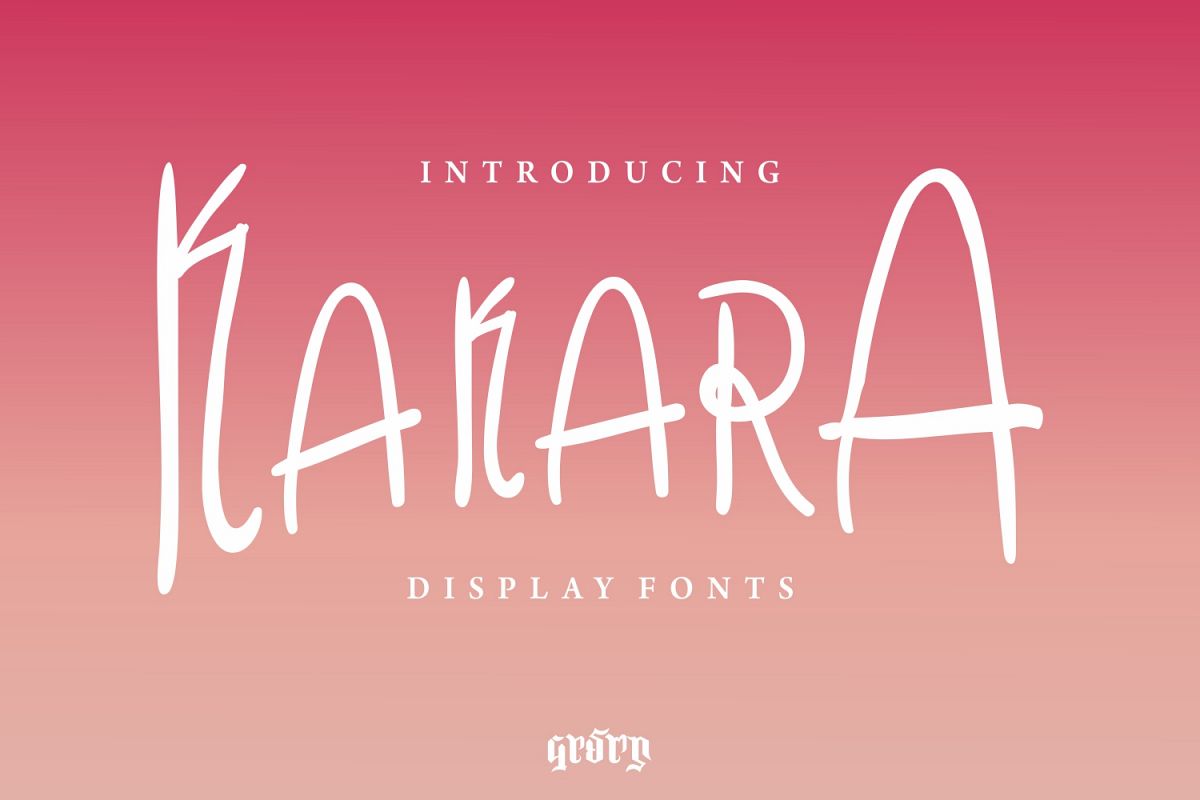
Kakara Display Font
Kakara
Kakara is a font family complete with additional multilanguages. It is suitable for you who will make design quotes, book titles, nameplate, or other designs.
Kakara Display Font